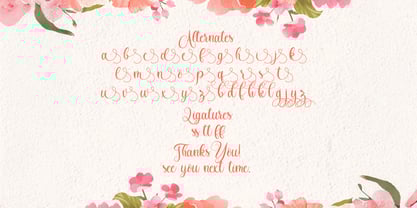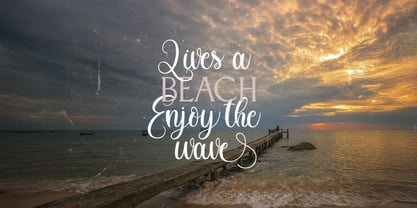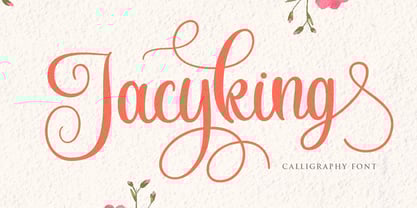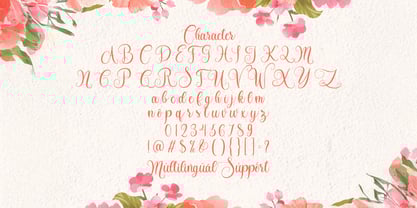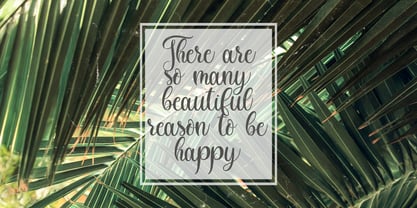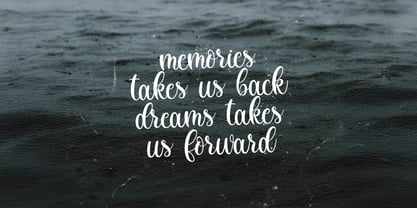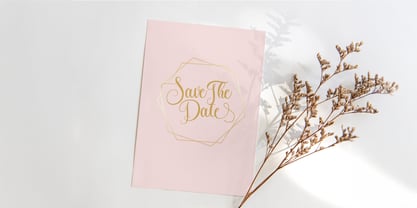
The Jacyking Font Family was designed by Virgiawan Listanto and published by Stringlabs Creative Studio. Jacyking contains 1 styles. More about this family
Jacyking is an exquisite handwritten font, masterfully designed to become a true favorite. It maintains its classy calligraphic influences while feeling contemporary and fresh. Fall in love with it and bring your projects to the highest levels!
Jacyking